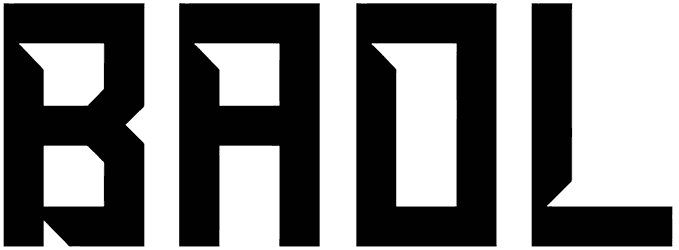
Baol Font
Baol is a techno font that has a modern innovative touch and at the same time maintains its solidity, thus it would be perfect for a wide set of creative purposes such as designing movie posters, video game banners, restaurant menus, web page templates, and applications.
This geometric font has the real potential to bring a sense of futuristic, momentum, drama, and excitement to the aforementioned graphic content.
We’re introducing the Baol font with a unique shape that’s modern and clean. This font has a feature that you can get with different font characters